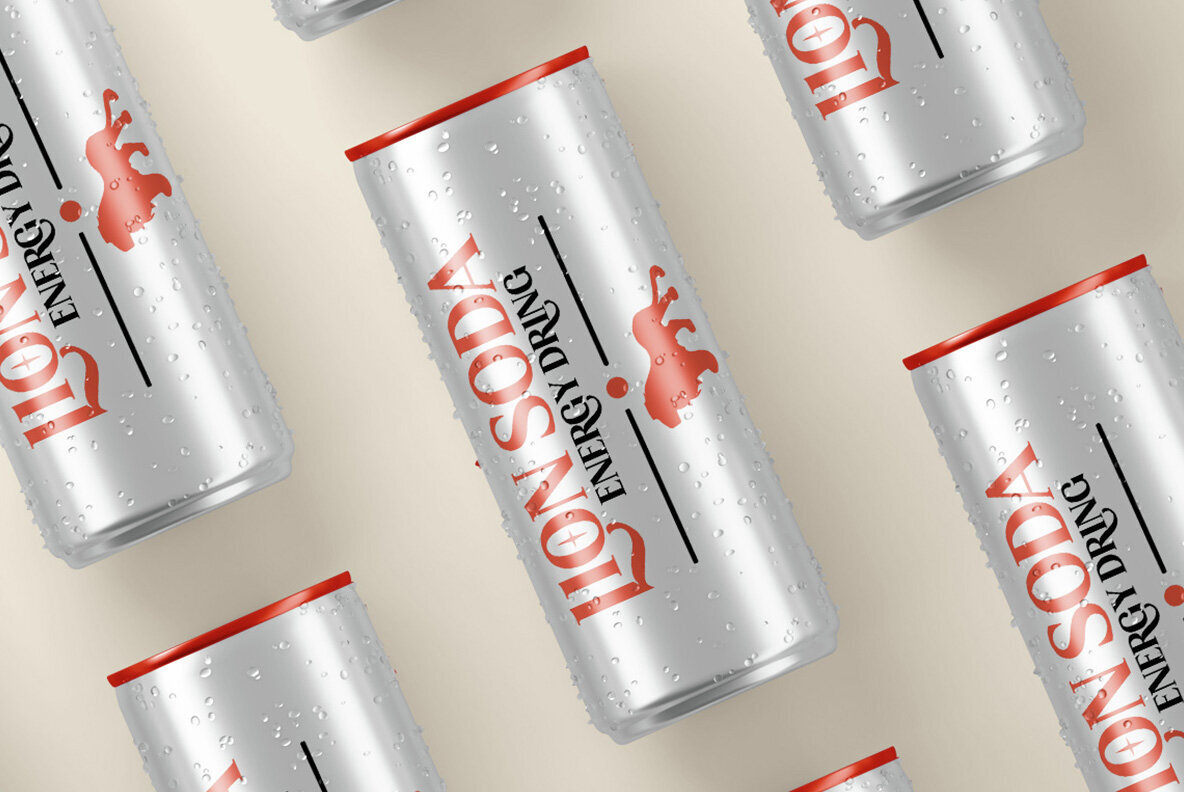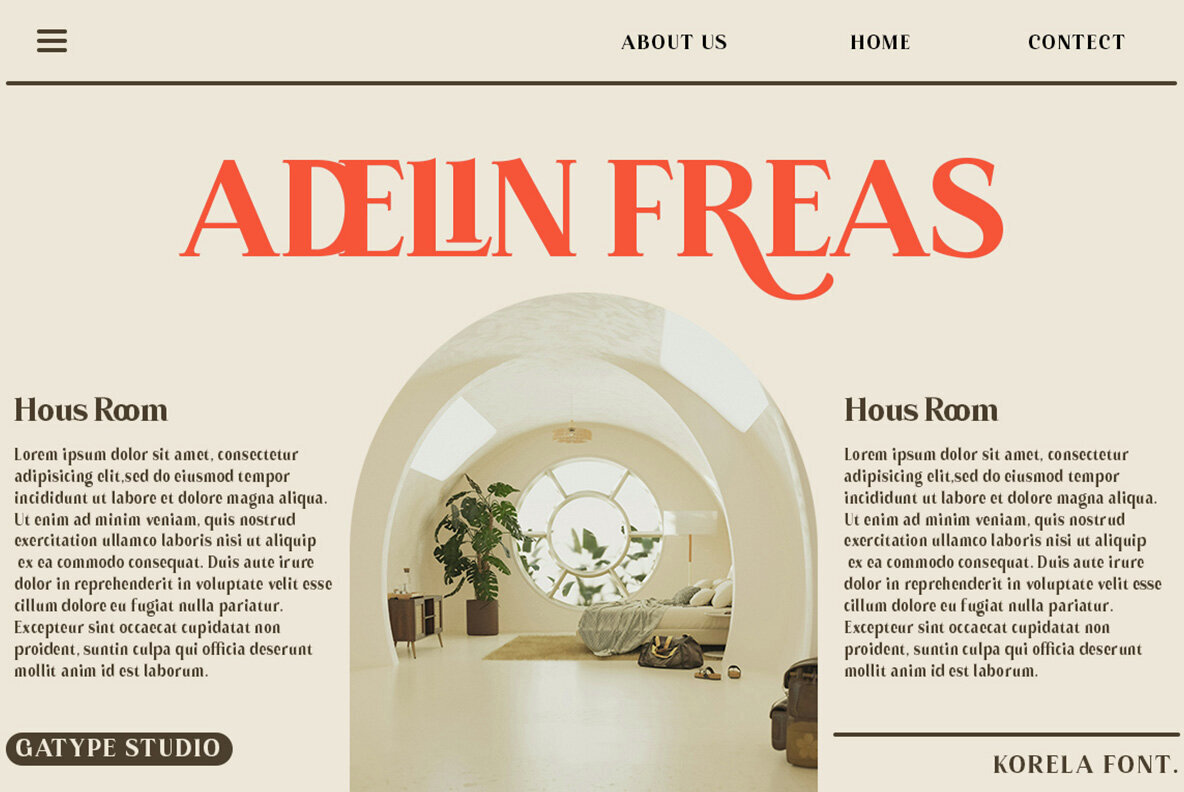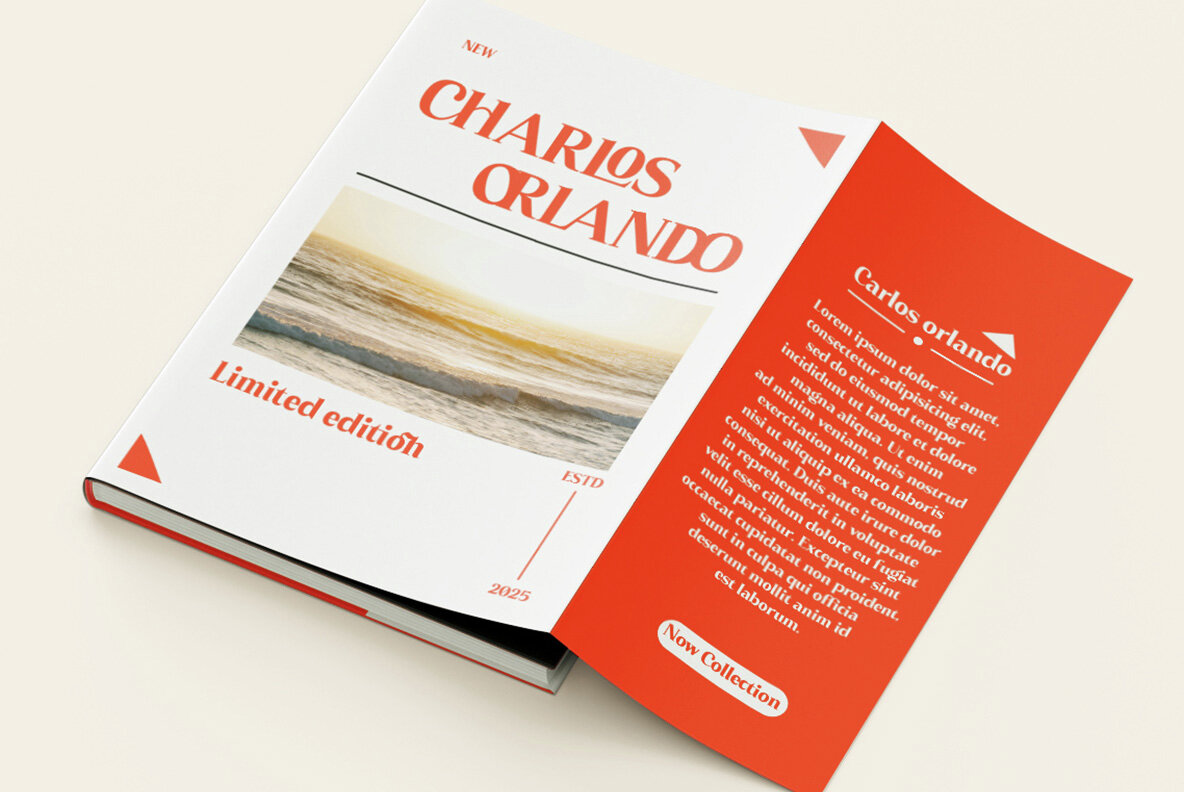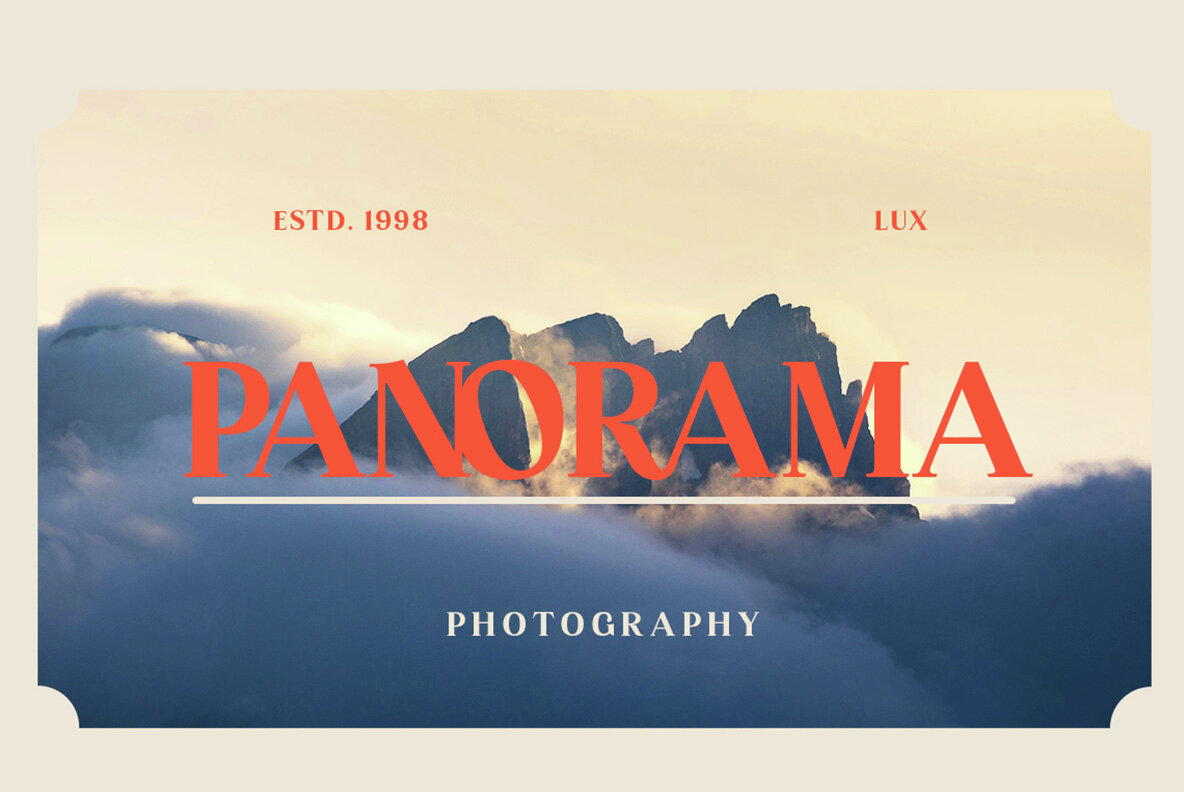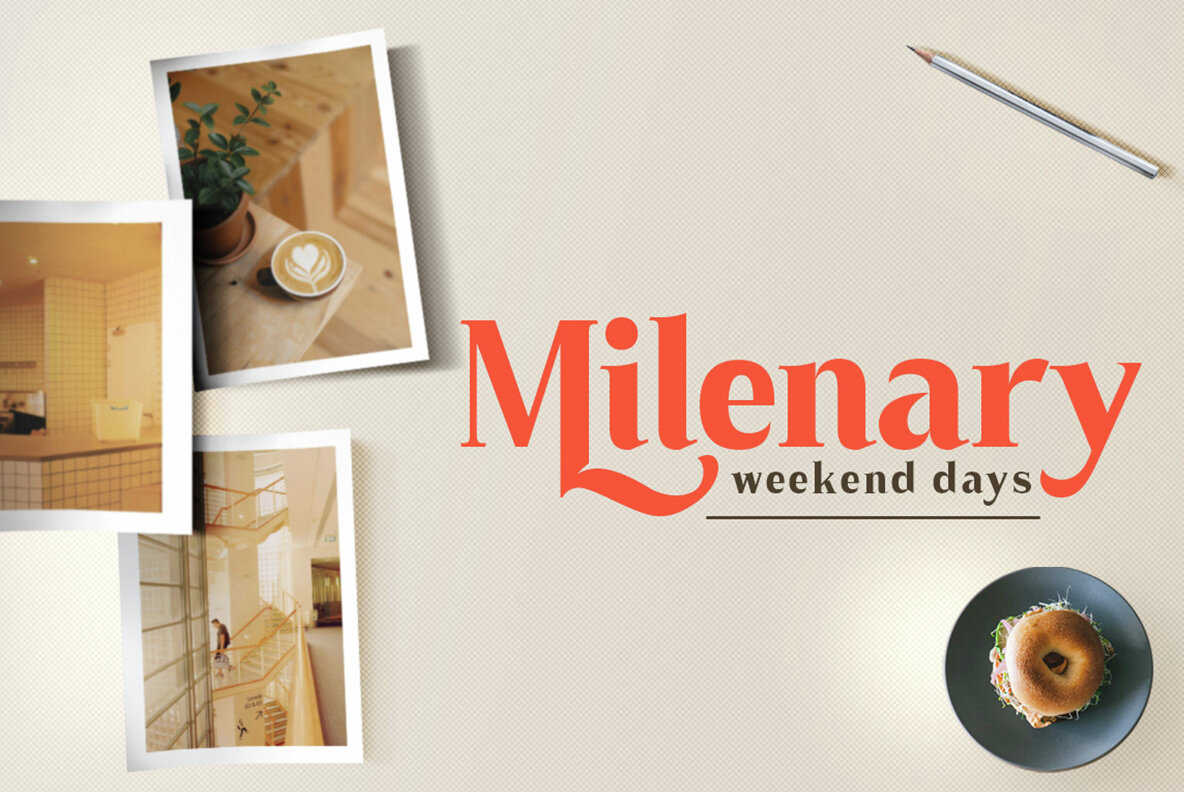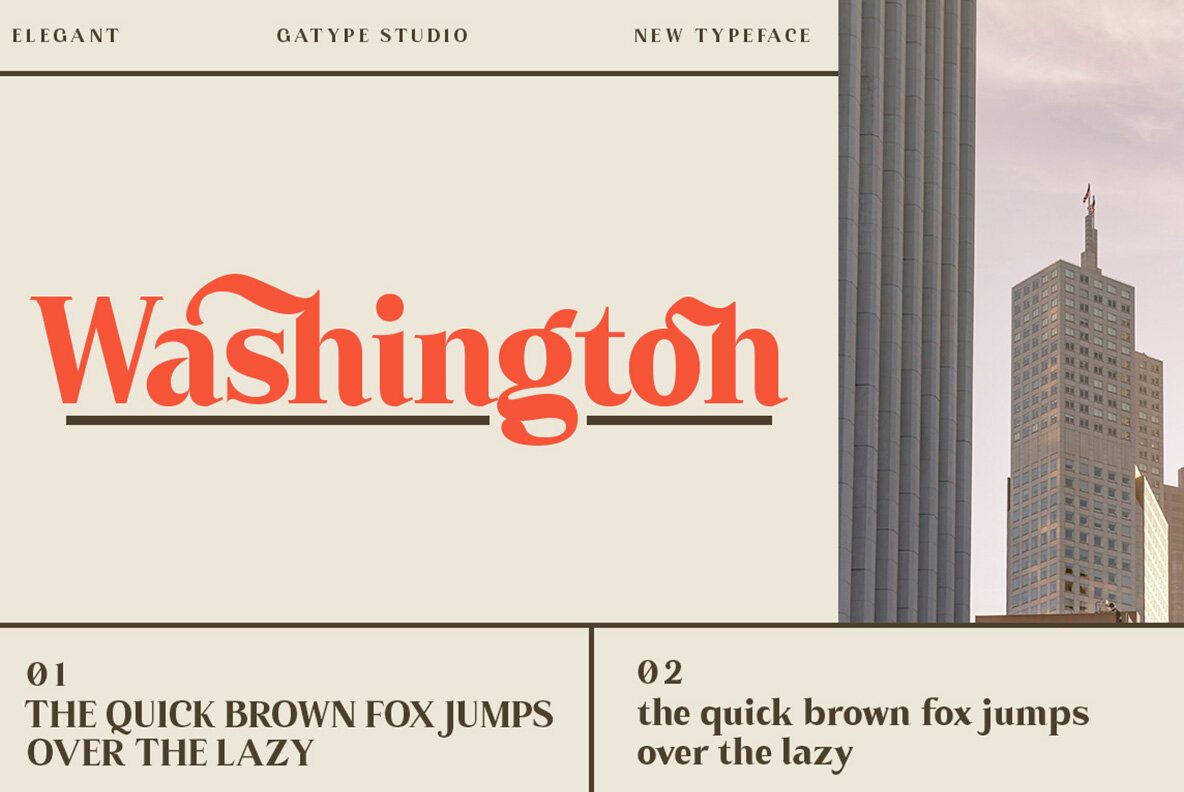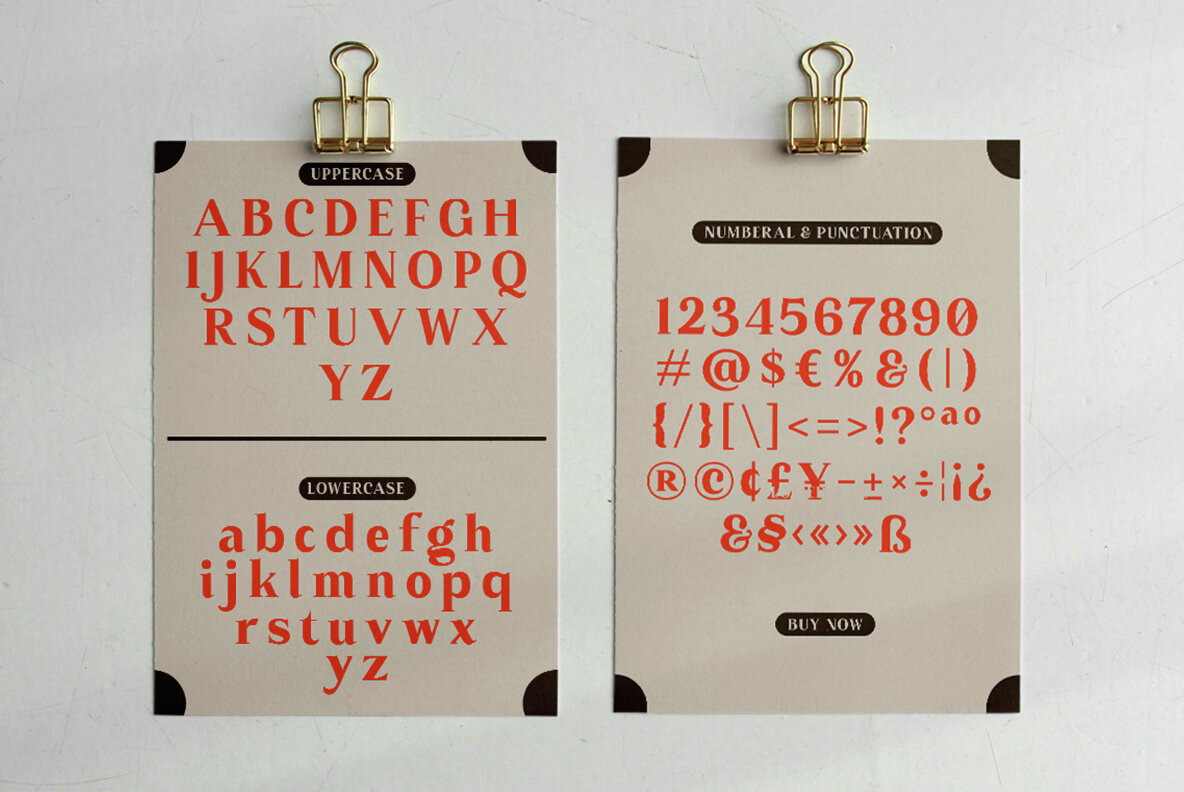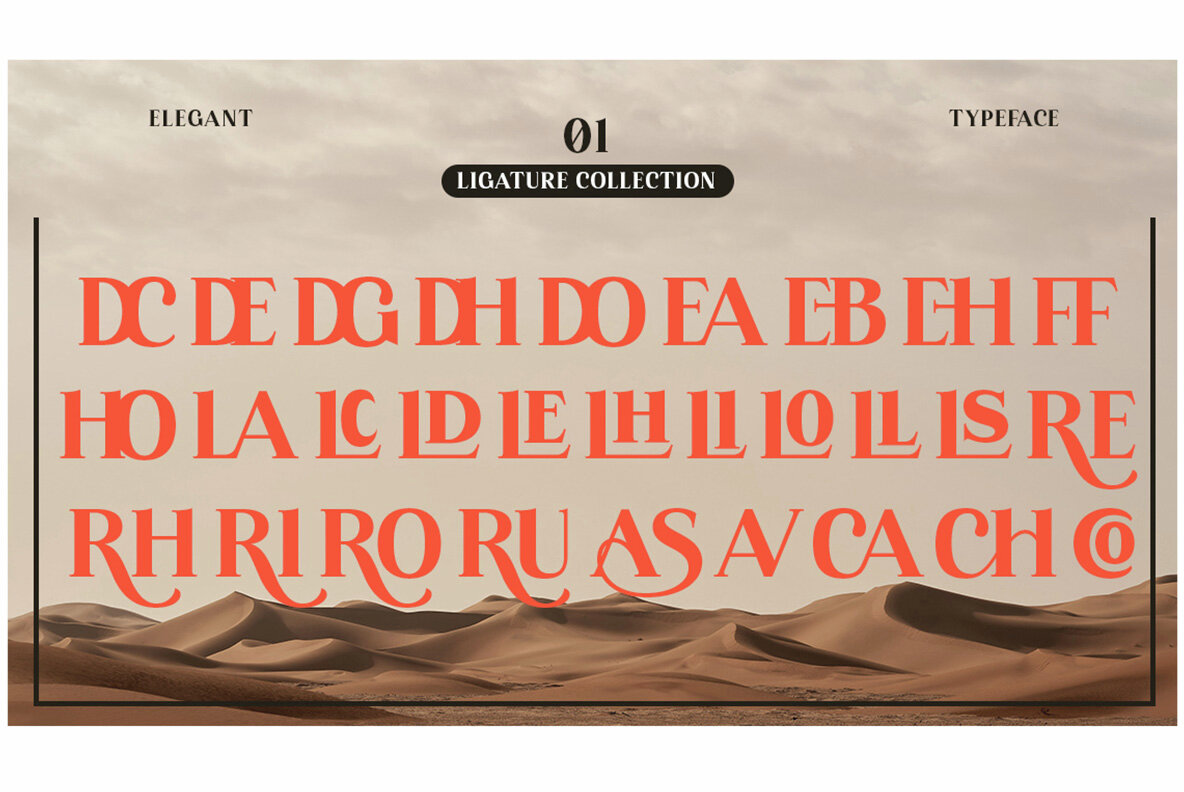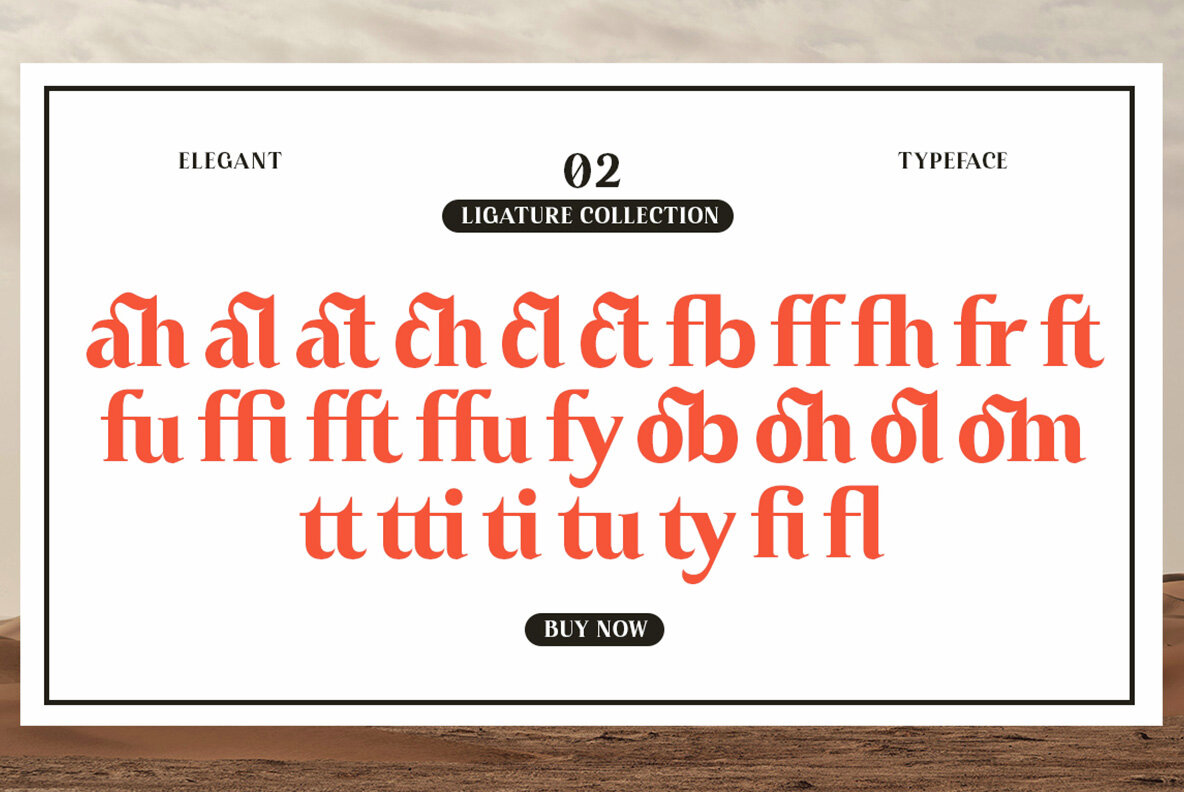
Korela Serif Font
Korela Serif Regular
Korela Serif is a modern font characterized by its clean, minimalist design. Featuring bold, clear letters with consistent thickness, Korela Serif ensures readability across various text sizes, making it perfect for both titles and paragraphs.
Ideal for digital design and branding projects, this font delivers a contemporary and professional aesthetic. Whether used in digital media or printed materials, Korela Serif adds a polished, modern touch to any creative endeavor.